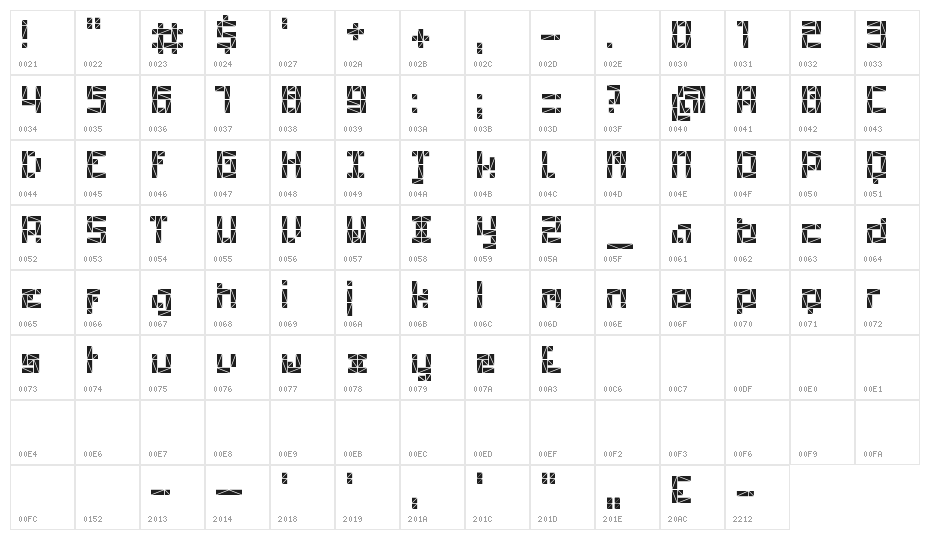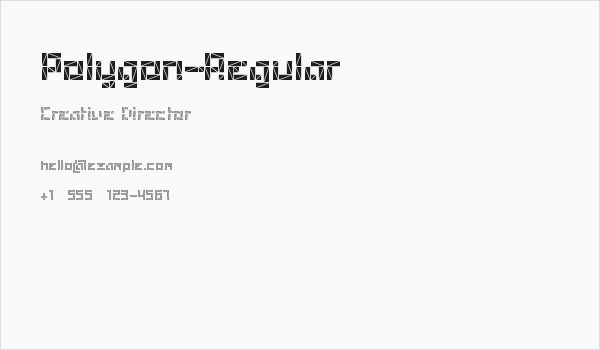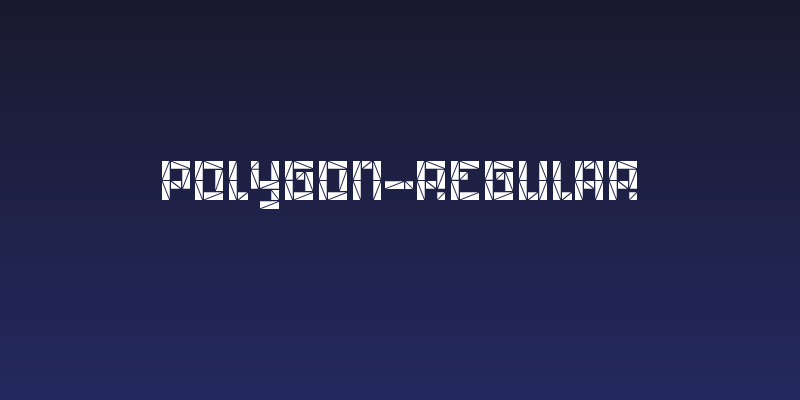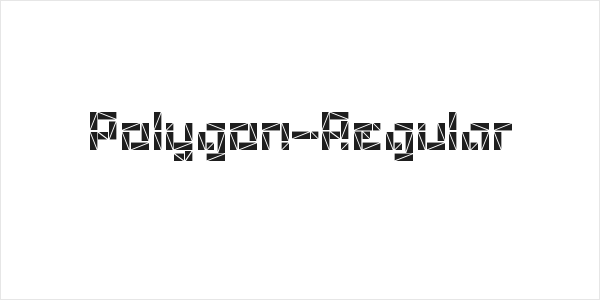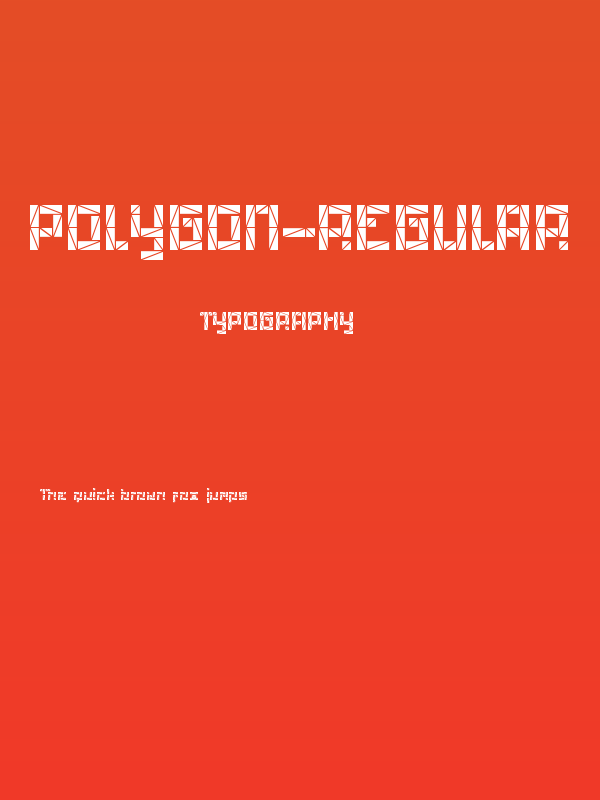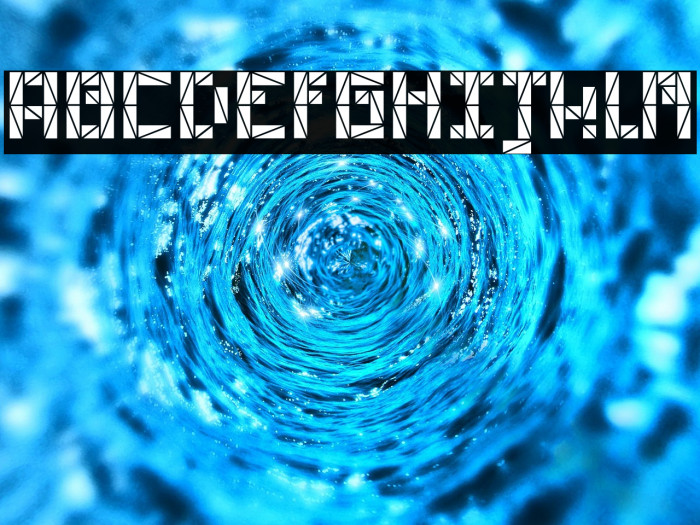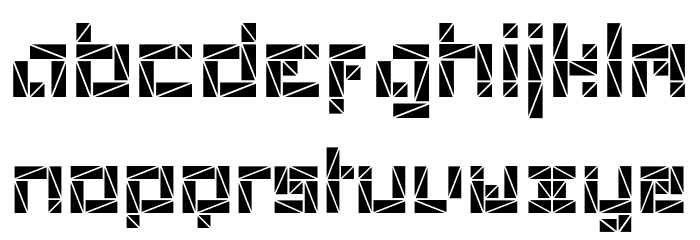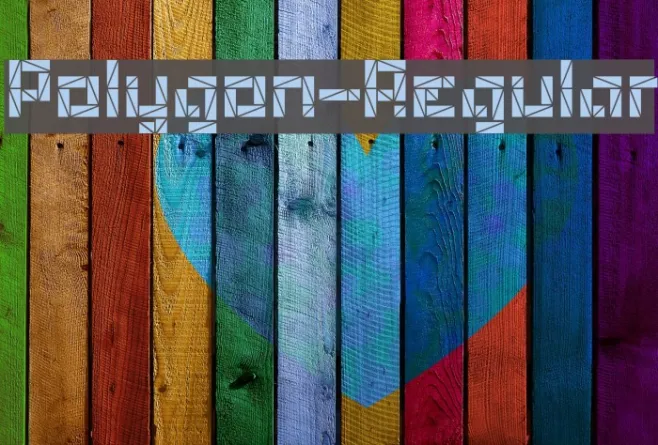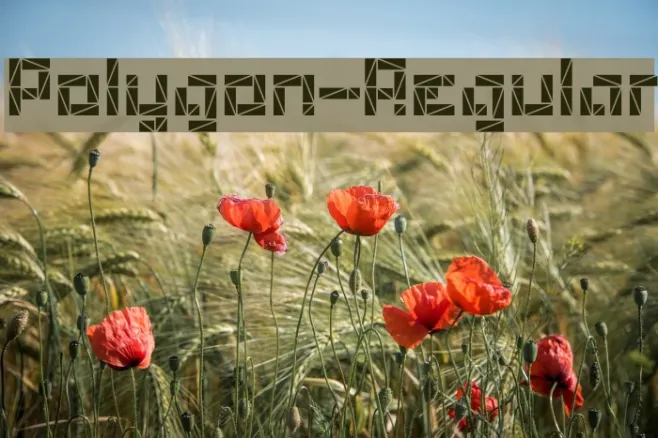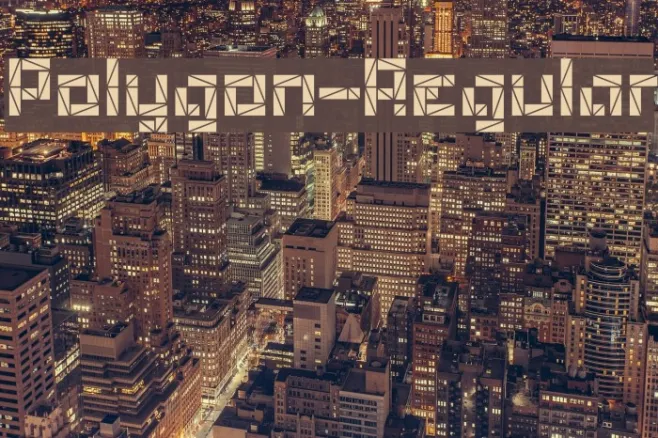
Polygon-Regular Font
Polygon-Regular Description
This font features a unique geometric design, with each character composed of polygonal shapes that create a striking, angular appearance. The letters are bold and distinct, making use of sharp angles and straight lines to form each character. The style is highly decorative, with a modern and futuristic feel, suitable for projects that require a standout, eye-catching typeface. The uppercase and lowercase letters maintain a consistent design theme, while numbers and special characters follow the same geometric pattern, ensuring uniformity across all elements.
| Proposed Projects | Ideal for branding, posters, album covers, and any project needing a futuristic or tech-inspired aesthetic. |